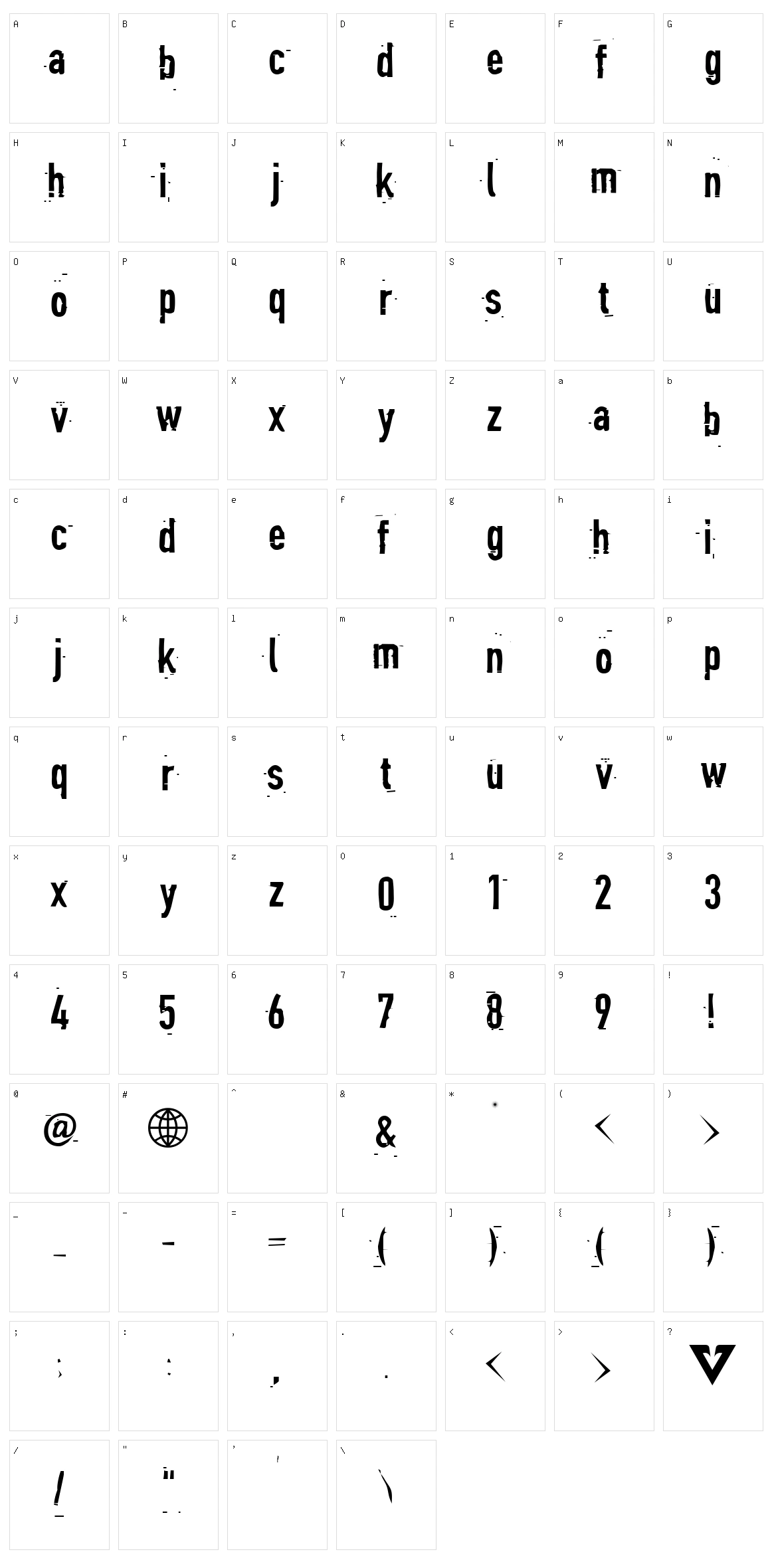
The free font Blind is carefully designed by MGM Designs, showcasing a thoughtful balance of creativity and usability and falls under the Destroy font style. When you download the ZIP file, it contains only 12.2 KB of font files, making it lightweight and quick to download. Please review the license details below to understand permitted usage and distribution rights. If license information is not available, we recommend using this font for personal projects only or contacting the author directly for commercial usage permissions.
'Blind' is a font based on the typeface called Reznor. It was created
the 13th and 14th of April, 1998 & it is _ofcourse_ freeware.